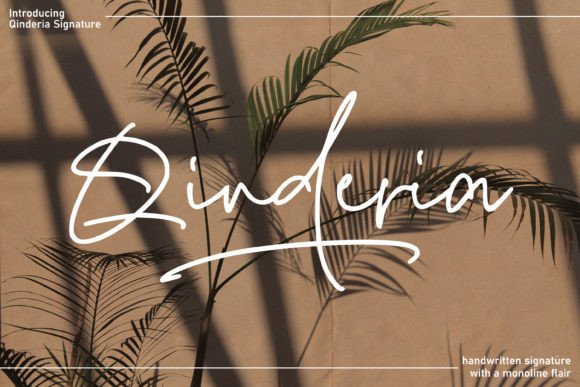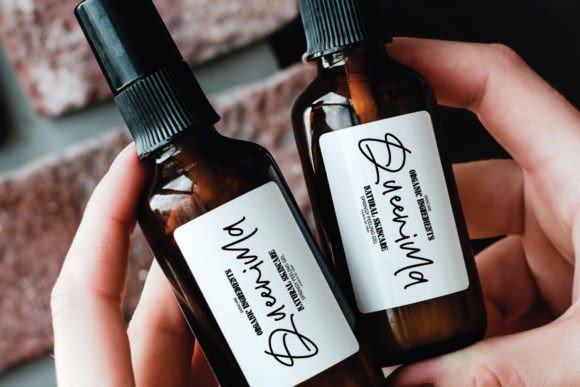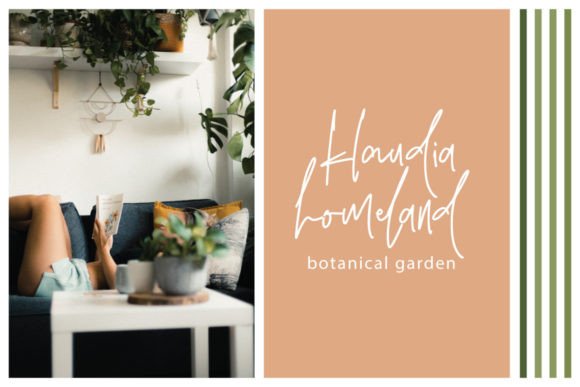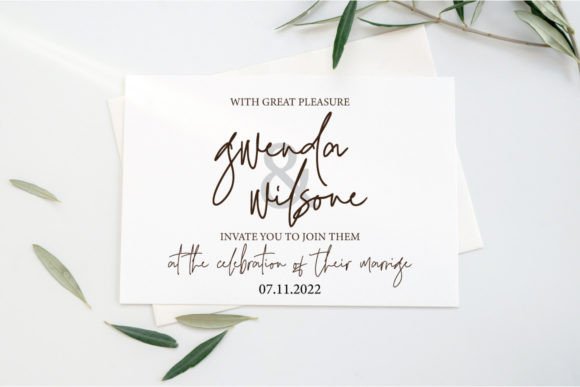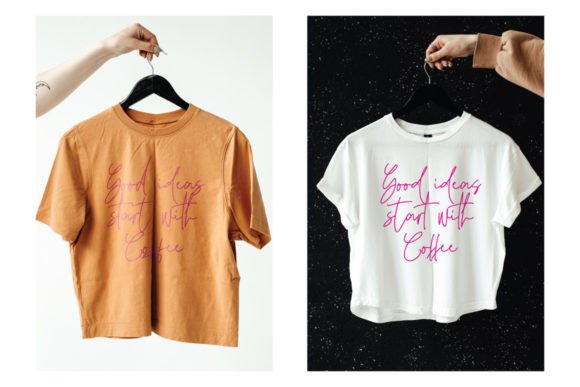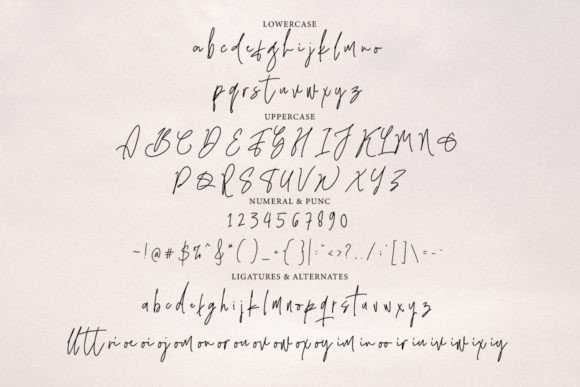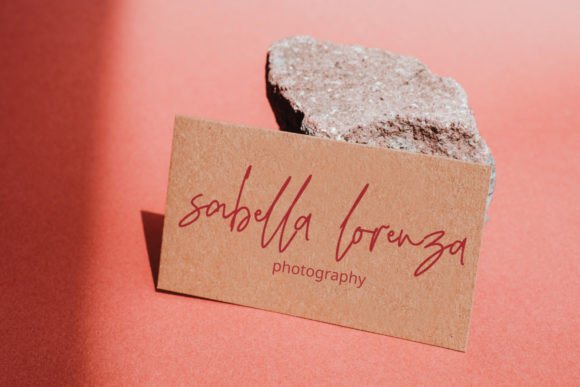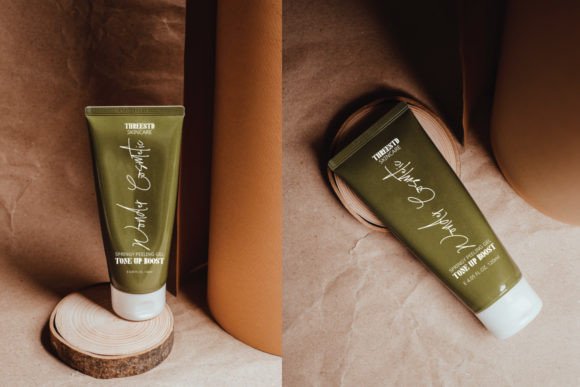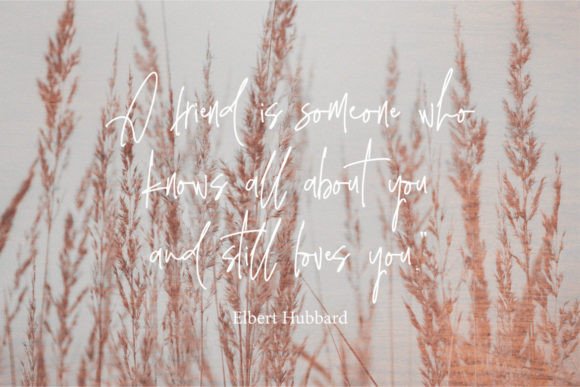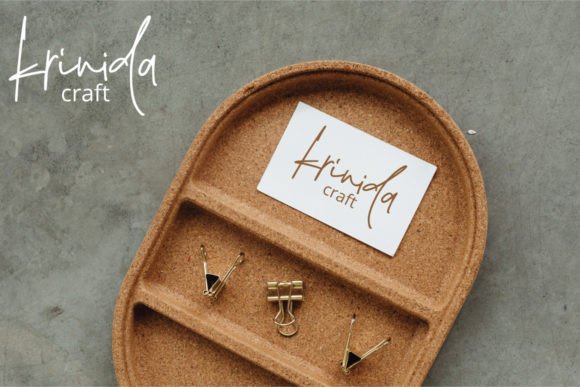
Qinderia Signature
About Qinderia Signature
Qinderia Signature is a sweet and friendly handwritten font. Its natural and unique style makes it incredibly fitting to a large pool of designs. The only limit is your imagination! This font is PUA encoded which means you can access all the glyphs and swashes with ease!